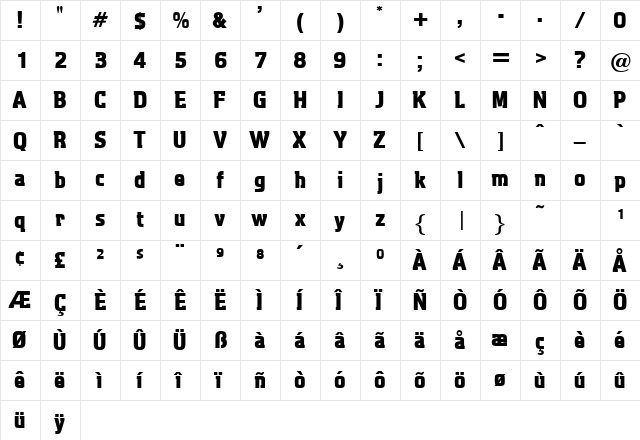
AquaticHeavy Regular Font Preview
AquaticHeavy Regular
Design Context for AquaticHeavy Typeface
AquaticHeavy offers clean, dependable letterforms without strong stylistic allegiance, making it a practical choice for designers who need flexibility.